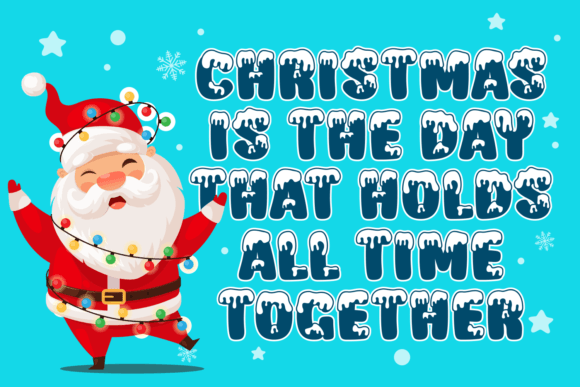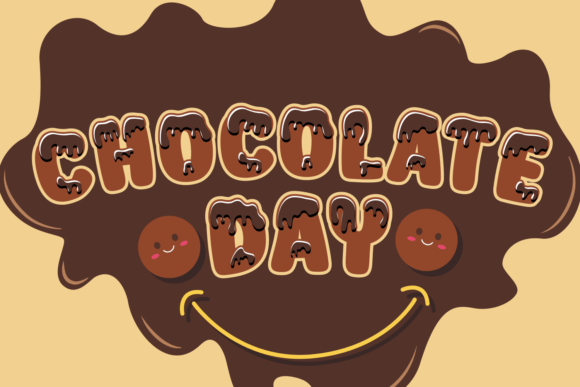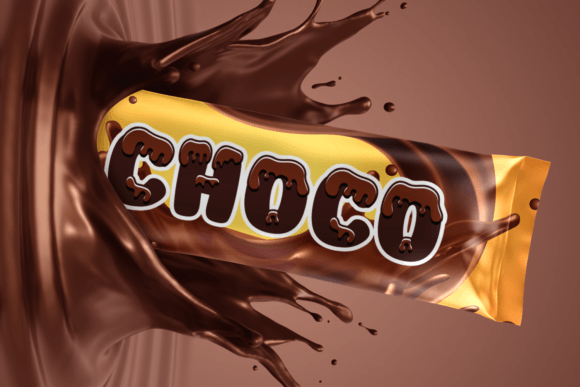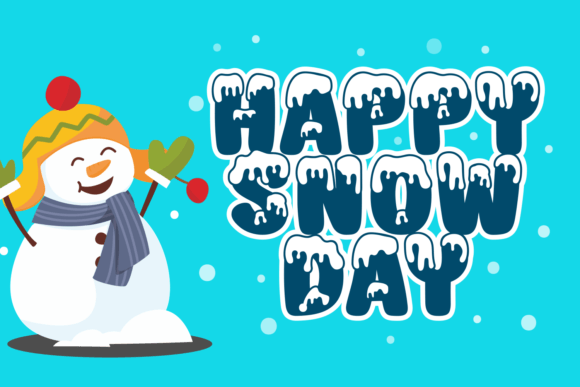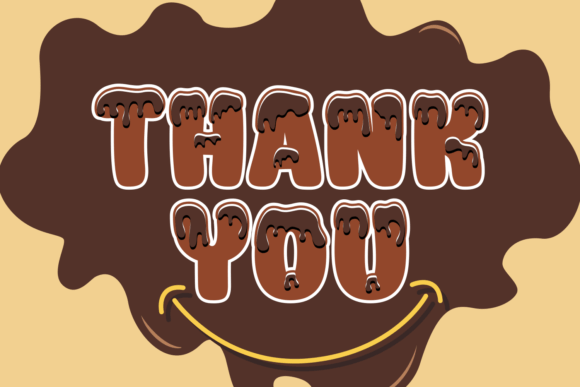
Introduction to Snow Hooh Font
Snow Hooh is a sweet and playful winter font that adds a touch of charm to your projects.
With cute decorative snow on top of each letter, it brings a festive and whimsical feel to your designs Perfect for creating a cozy winter atmosphere in your text, Snow Hooh is an adorable choice for holiday cards, invitations, and any project that needs a sprinkle of seasonal delight.